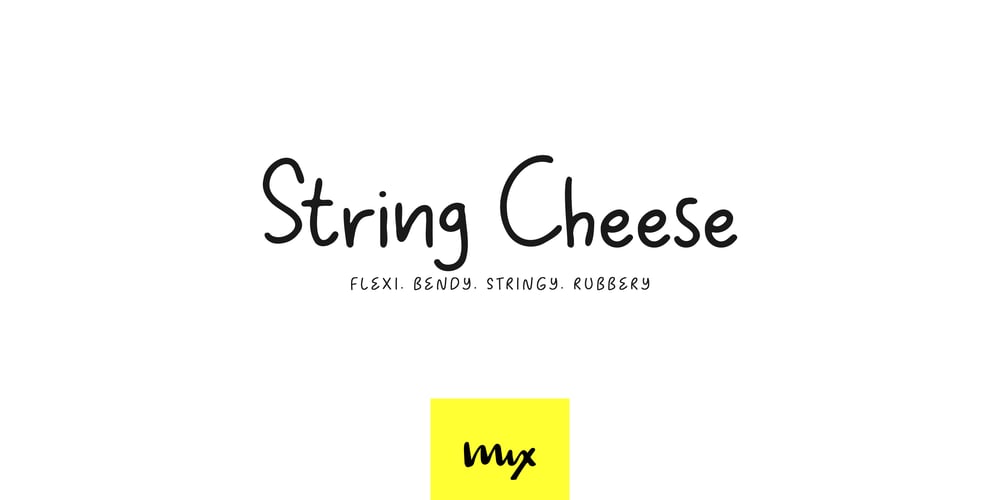
Mix String Cheese Font Family was designed by Mikko Sumulong and published by Mix Fonts. Mix String Cheese contains 1 styles and family package options. Flexi. Bendy. Stringy. Rubbery.Introducing Mix String Cheese – the ultimate handwritten font for adding personality and playfulness to your designs. This font is perfect for logos, titles, and packaging design, and comes with a full range of characters including uppercase letters, punctuation, numbers, and special symbols and accents. Mix String Cheese is a versatile font that is sure to bring fun and creativity to all of your projects. Don’t settle for boring, generic fonts – add some flavor to your designs with Mix String Cheese.